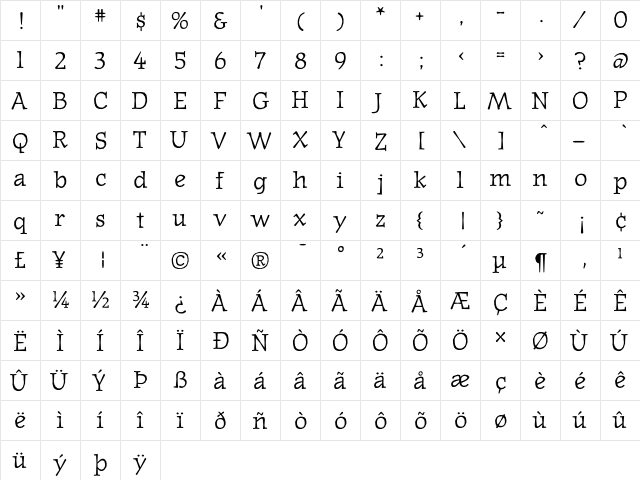
JournalTextLining Regular
Design Context for JournalTextLining Typeface
JournalTextLining takes a measured approach to typography — its balanced proportions and neutral character make it a reliable workhorse for both digital and print work.